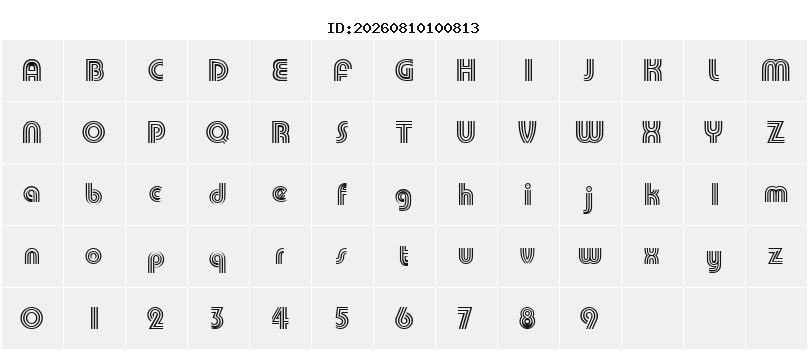
PATAMON Preview
• Font Name: PATAMON
• Full Font Name: PATAMON Regular
About PATAMON.ttf
PATAMON.ttf is a modern, elegant sans-serif font designed for ultimate readability and visual harmony. Perfect for branding, headlines, web design, and print materials.